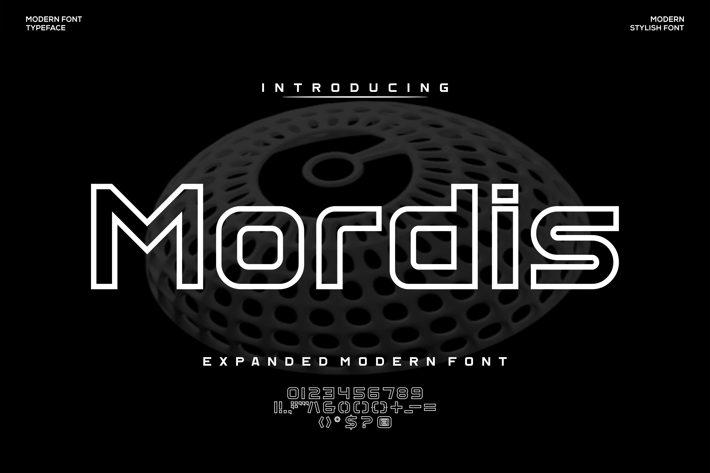
Mordis Font
ariyadiagus
Introducing our new product Kurdis Font - Modern Font
Kurdis Font - Modern Font is a bold and authentic display font. The font is suitable for any branding project like logo, esport, and many more. outstanding in a wide range of contexts.